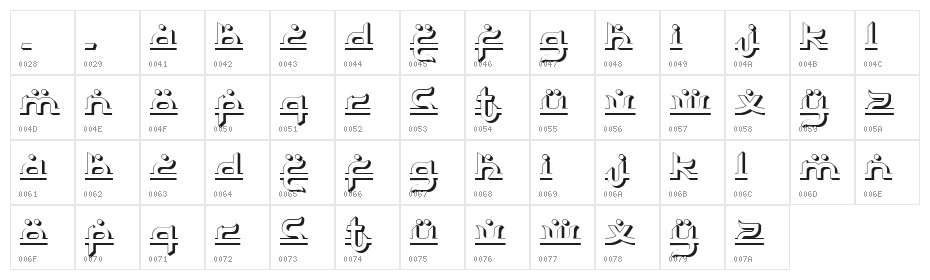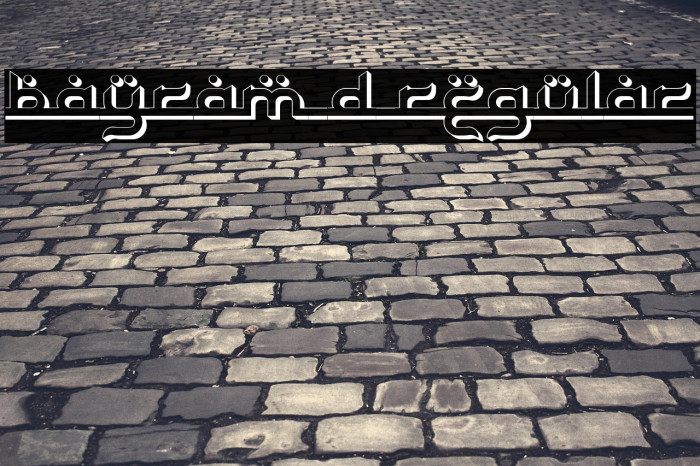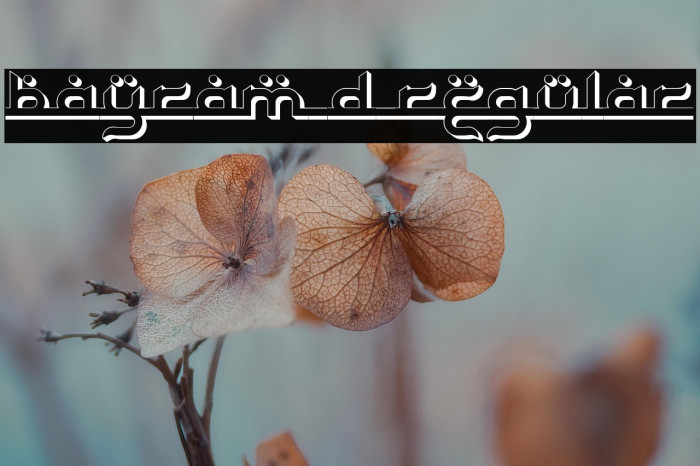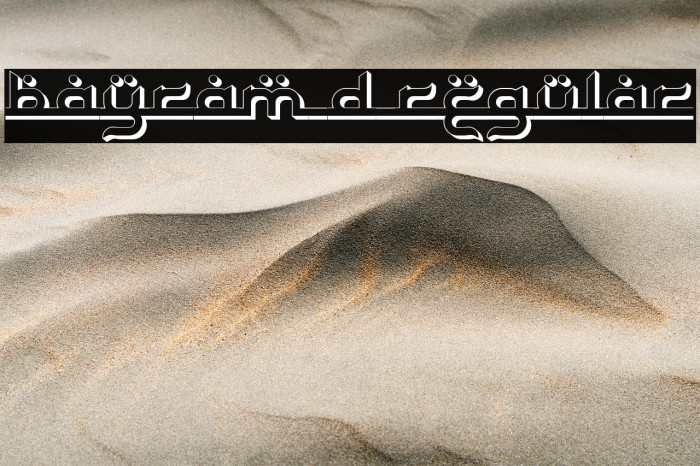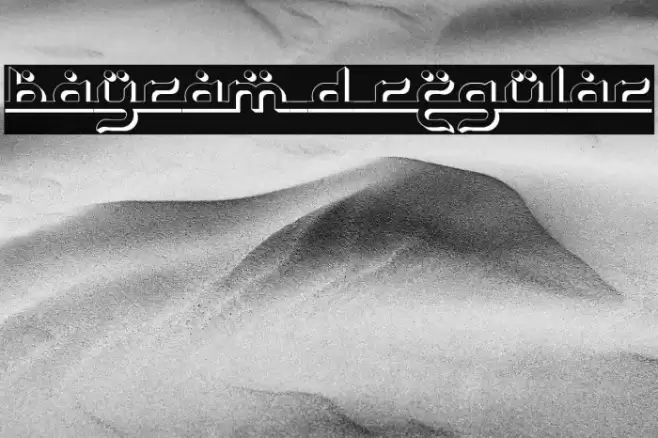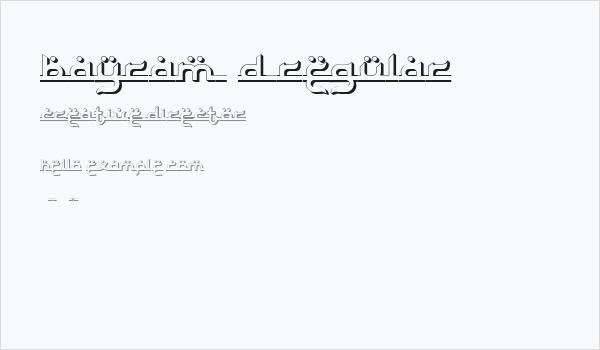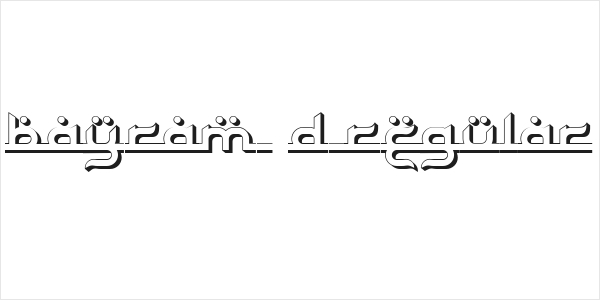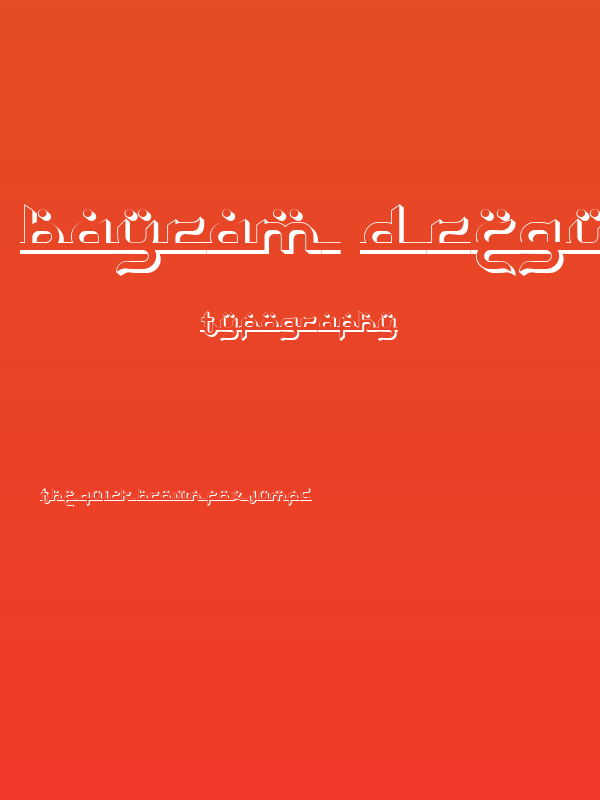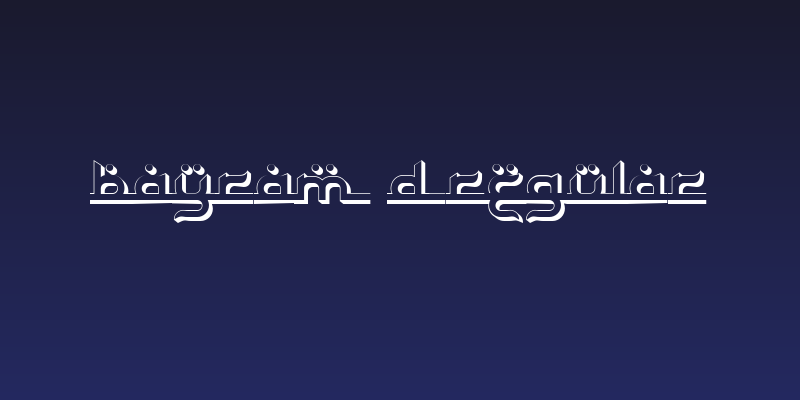
Bayram 3D Regular Font
Bayram 3D Regular Description
This font features a bold, three-dimensional style with a distinct shadow effect that gives it a striking appearance. The characters are interconnected with a continuous line, creating a cohesive and unified look. The font includes both uppercase and lowercase letters, as well as numbers and a selection of special characters. Its unique design is characterized by rounded edges and a playful, modern aesthetic. The shadow effect adds depth, making it suitable for eye-catching designs. The font's style is both decorative and functional, offering versatility for various creative projects.
| Proposed Projects | Ideal for posters, logos, headlines, and any project requiring a bold, eye-catching typeface. |